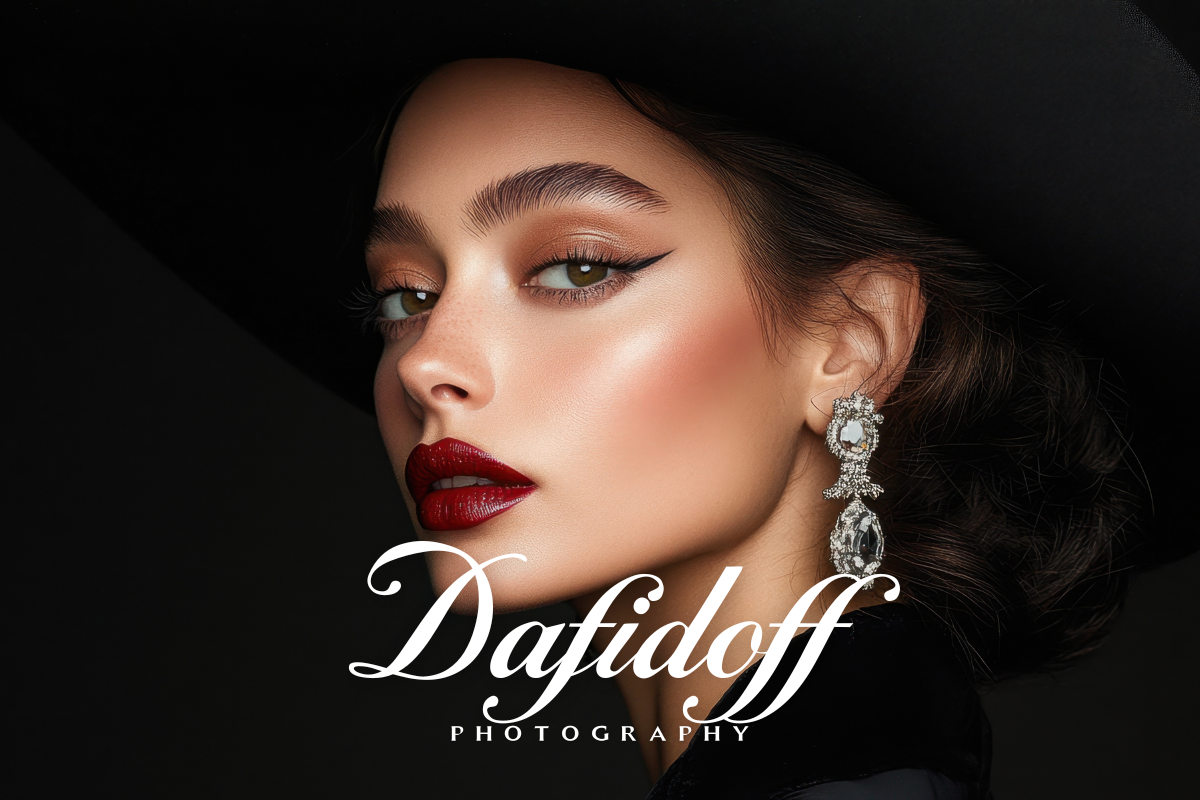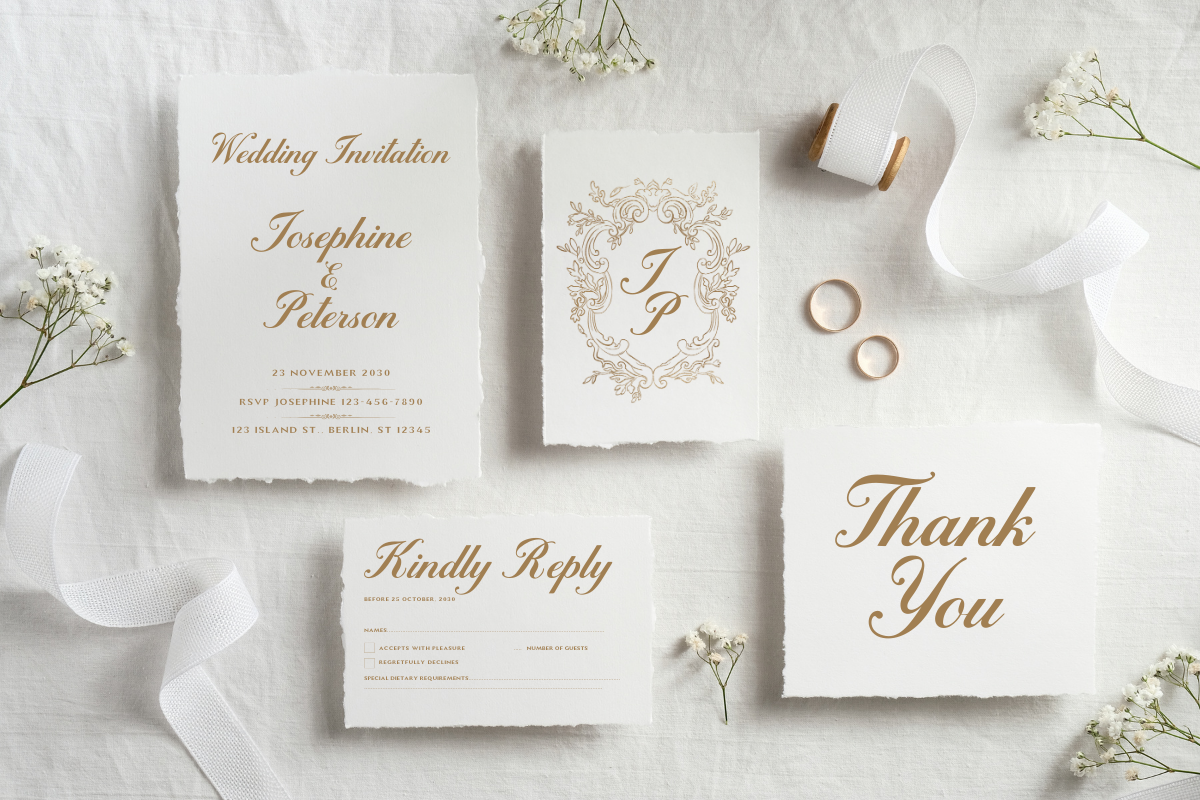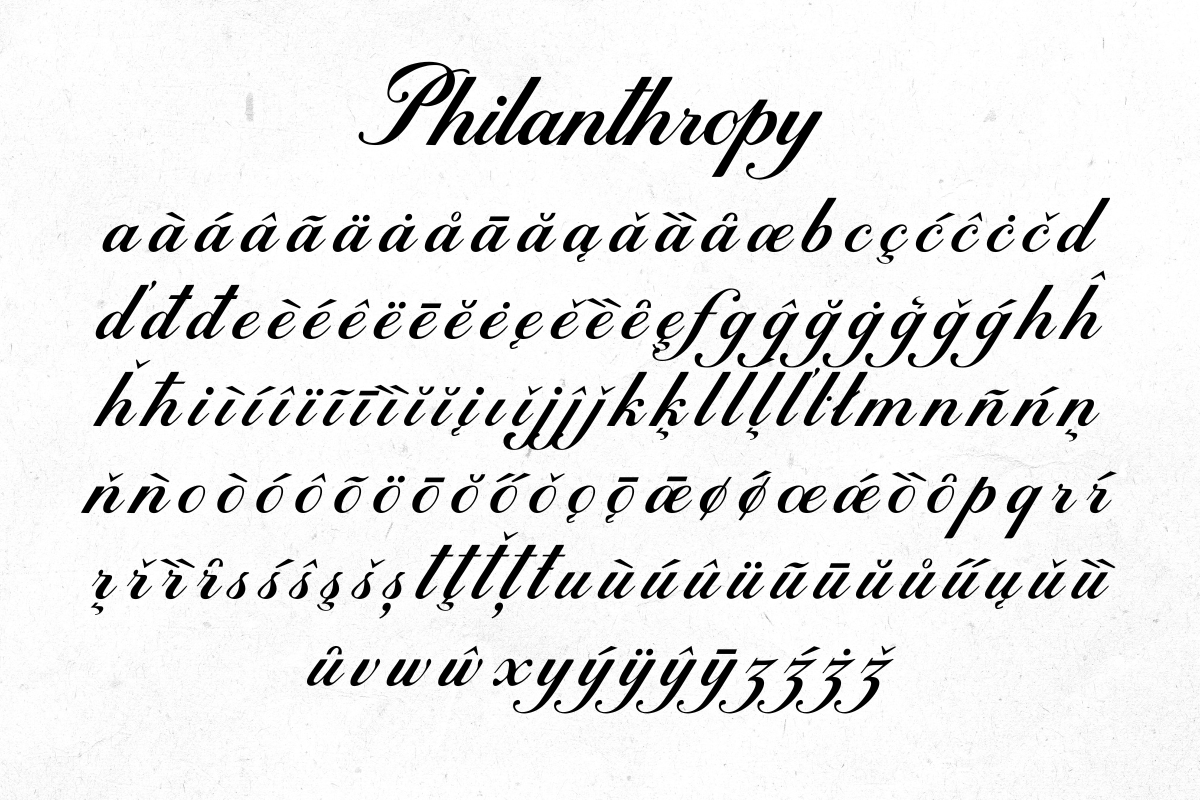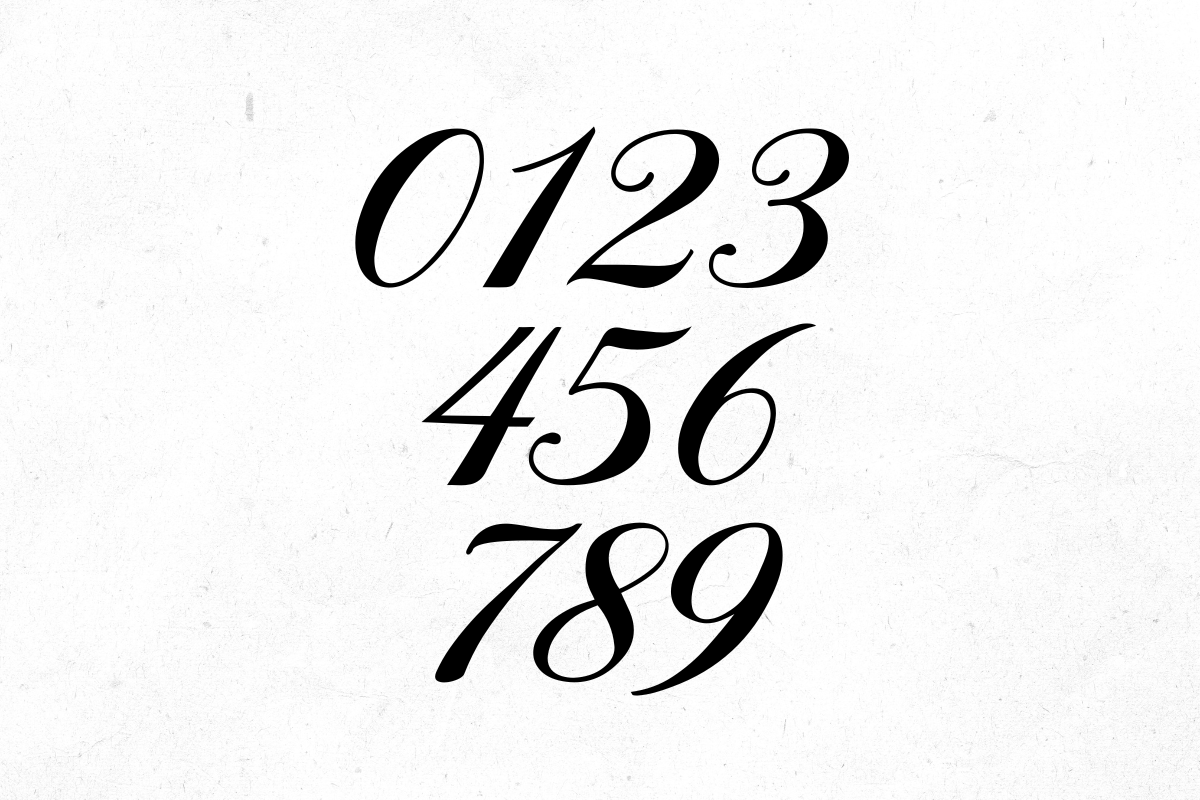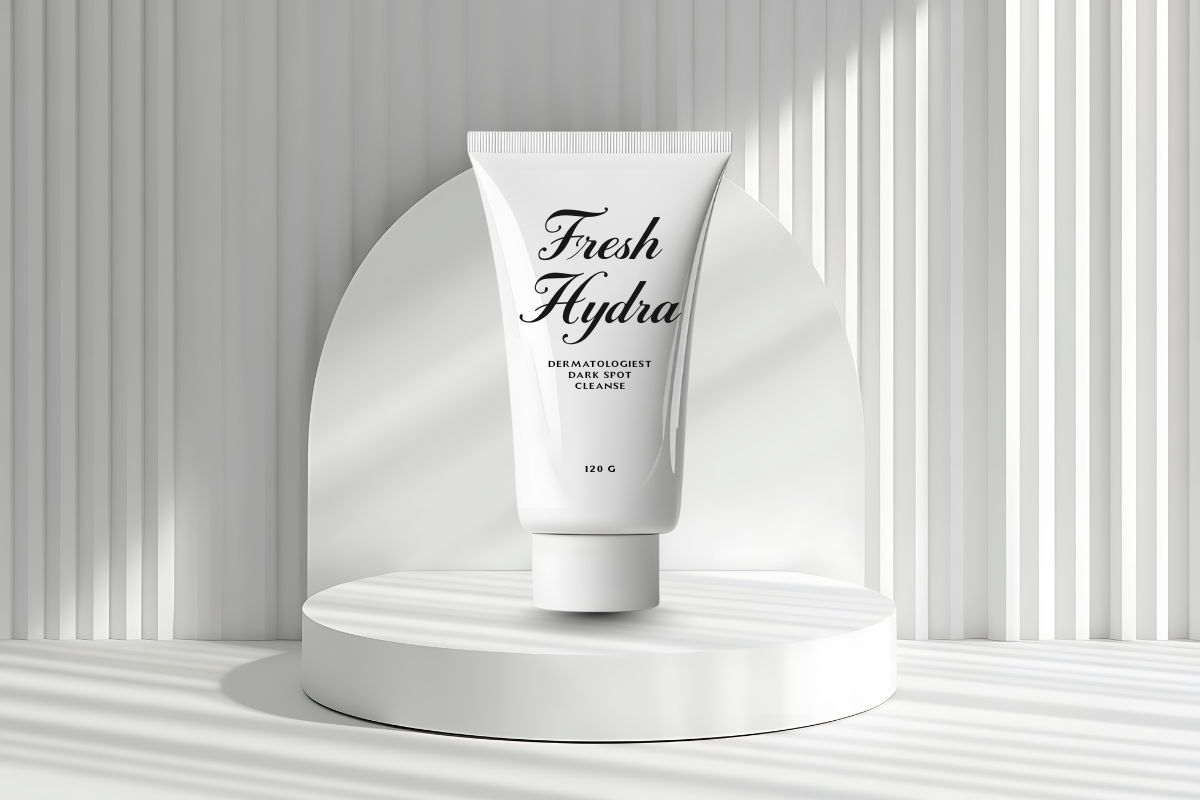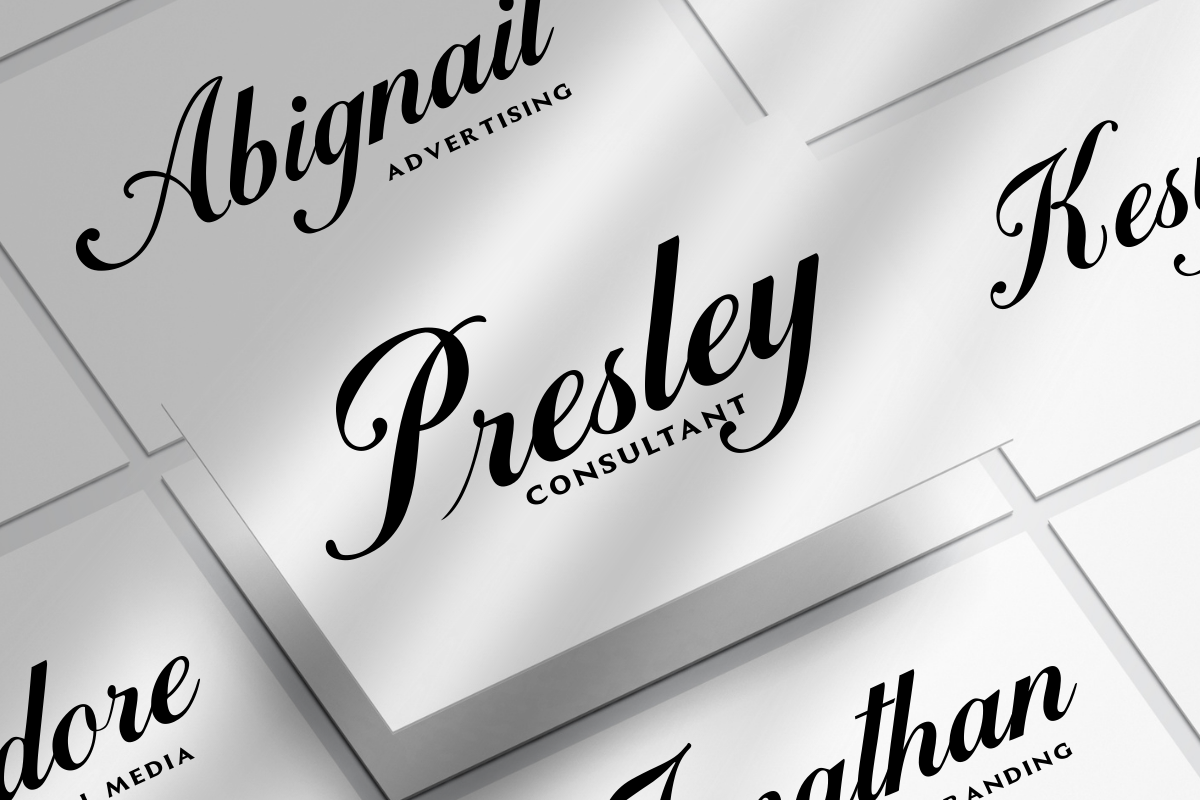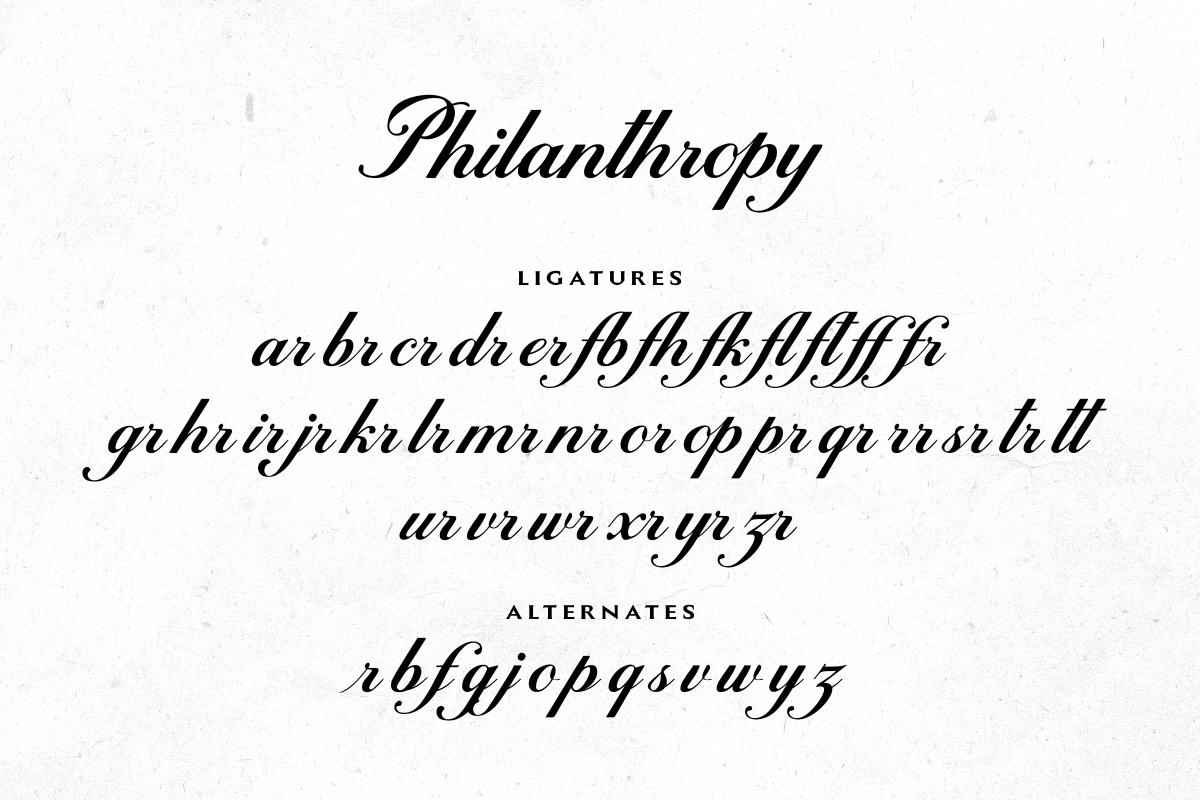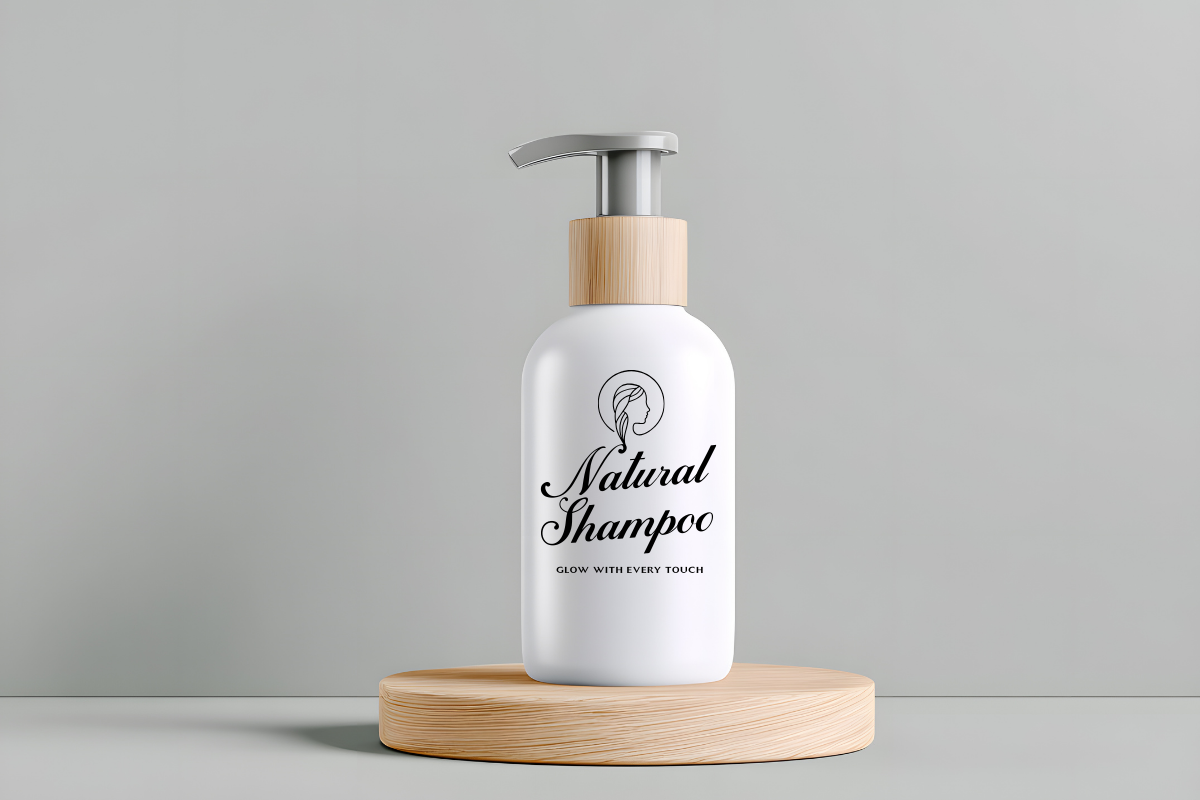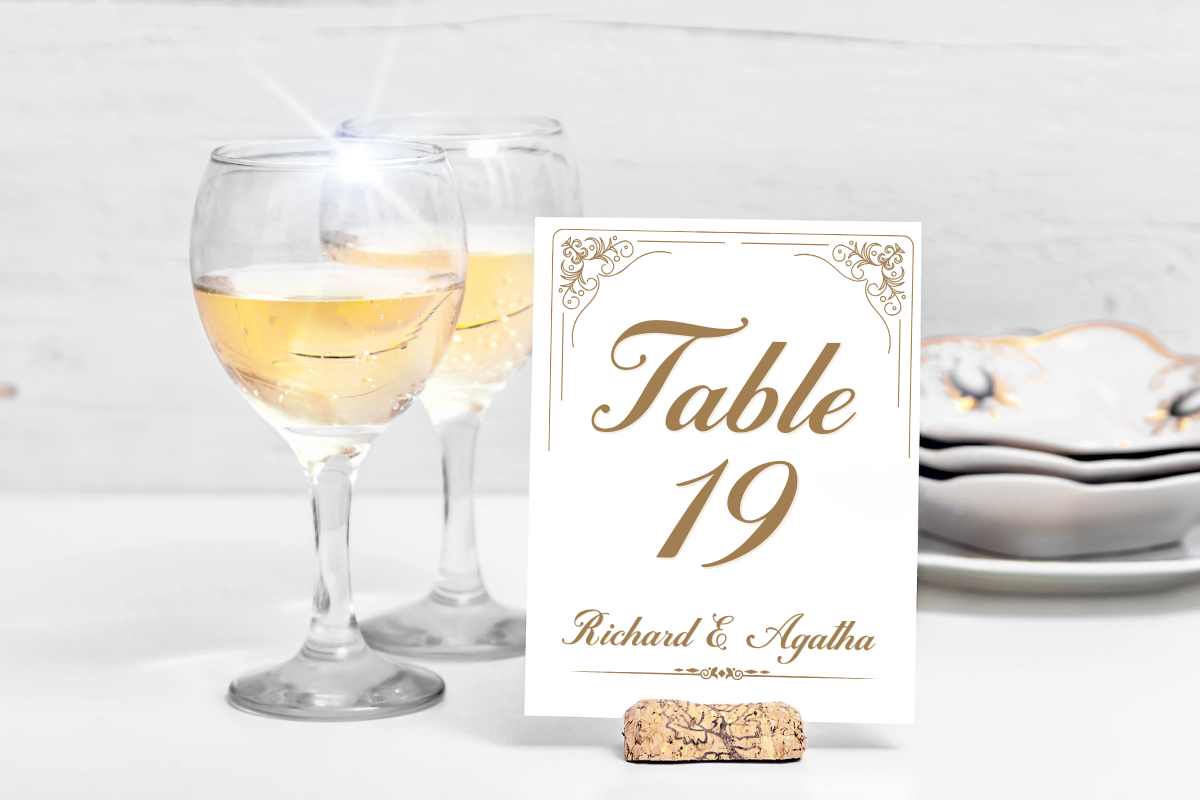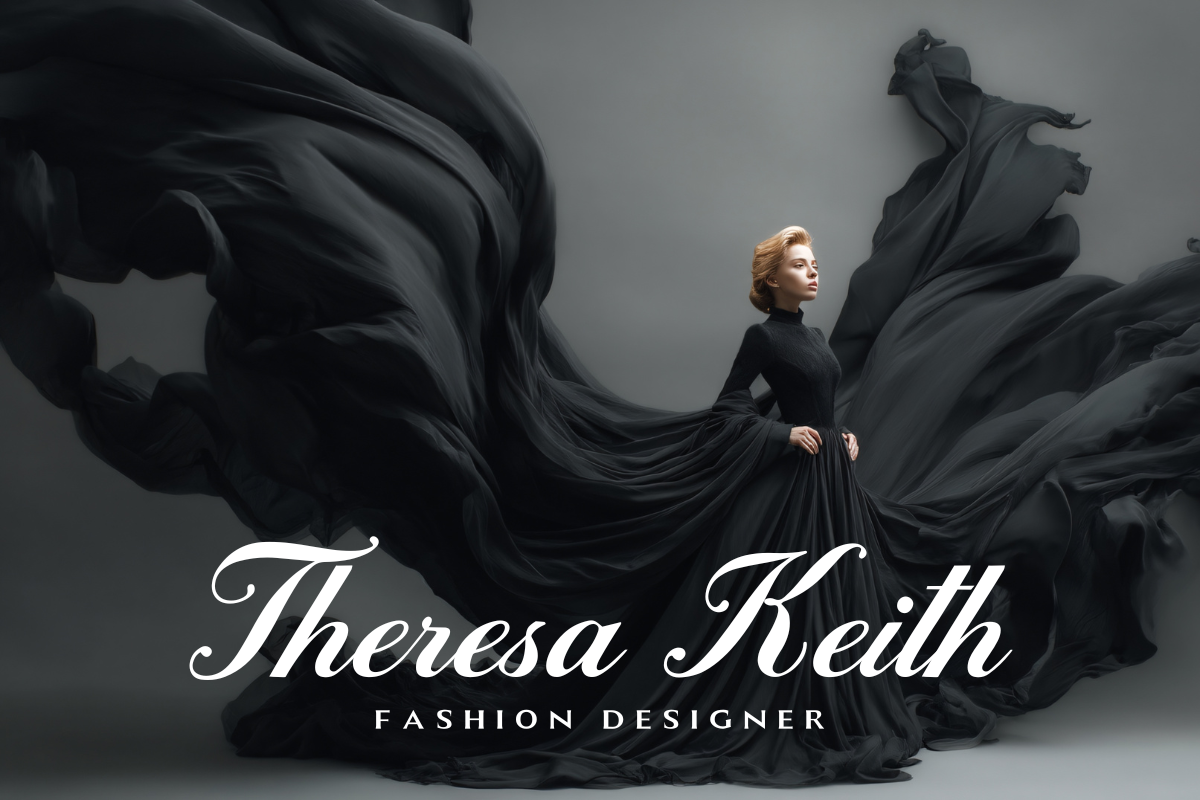
Philanthropy – Elegant Calligraphy
Philanthropy – Elegant Calligraphy is a luxurious calligraphy font crafted with refined curves and smooth strokes, designed to bring elegance and sophistication to your creative projects. Each character is drawn with artistic detail, making the font perfect for both modern and classic aesthetic styles.
This font includes beautiful ligatures, expressive alternates, and extensive multilingual support, giving designers the flexibility to create unique and polished lettering compositions. With its graceful calligraphy style, Philanthropy is ideal for branding, wedding stationery, high-end packaging, logos, fashion-related designs, editorial layouts, and social media content.
✨ Features:
Elegant calligraphy style
Many Ligatures
Multilingual Support (Western & Central European Languages)
Smooth handcrafted strokes
High-quality letterforms
🎯 Perfect For:
Wedding invitations & stationery
Luxury branding & logo design
Beauty & fashion branding
Premium product packaging
Social media posts & quotes
Magazine and editorial design
Elegant posters
Greeting cards & gifts
Let your creativity shine with the elegance of Philanthropy Font. ✨